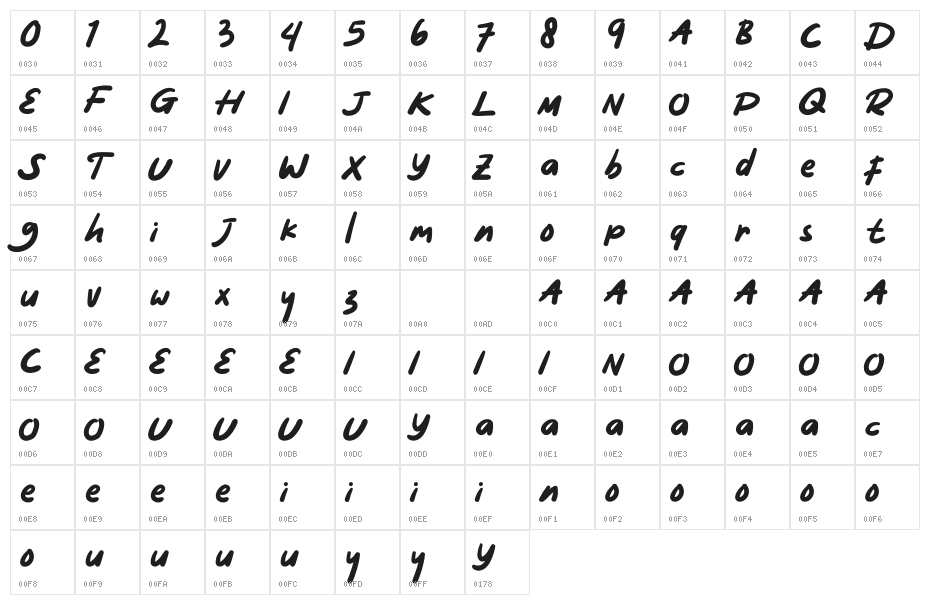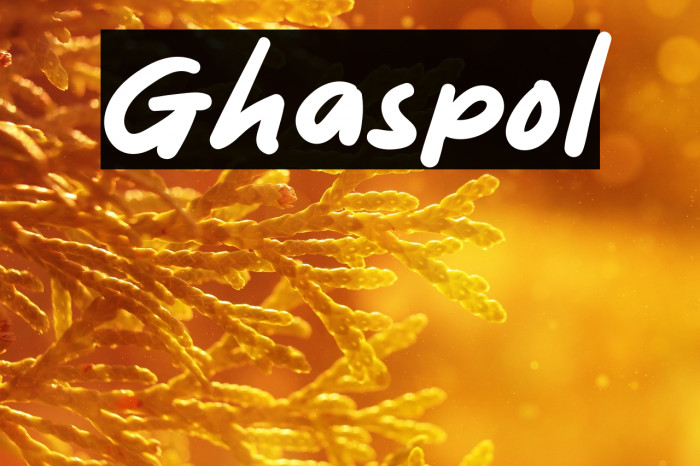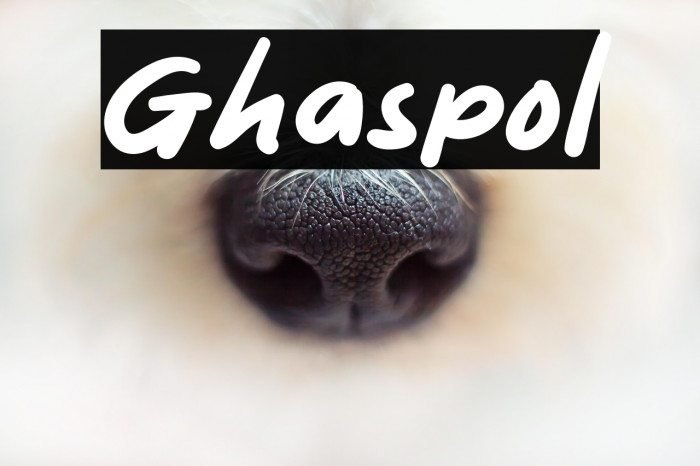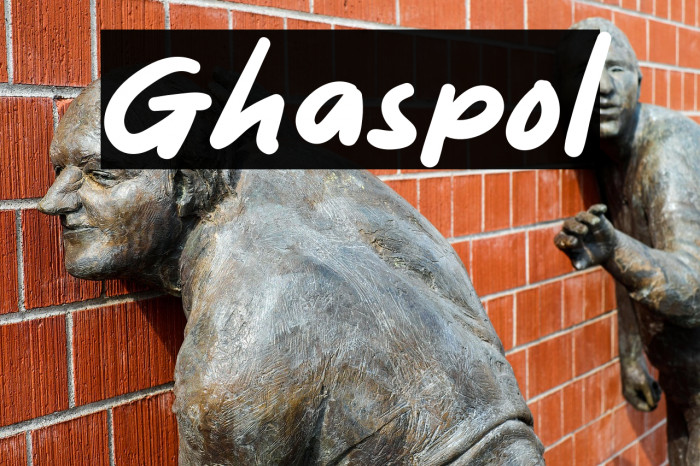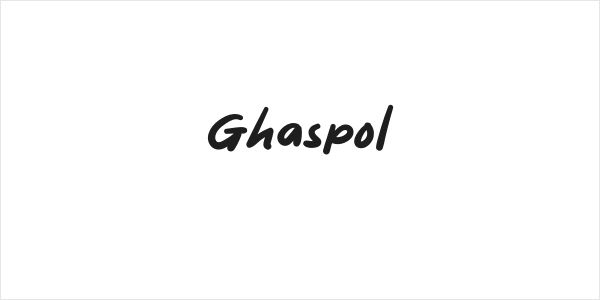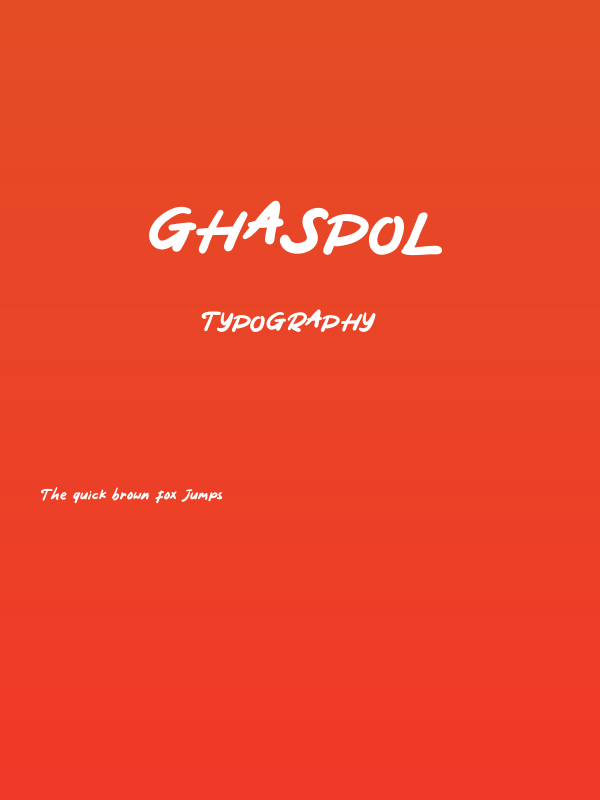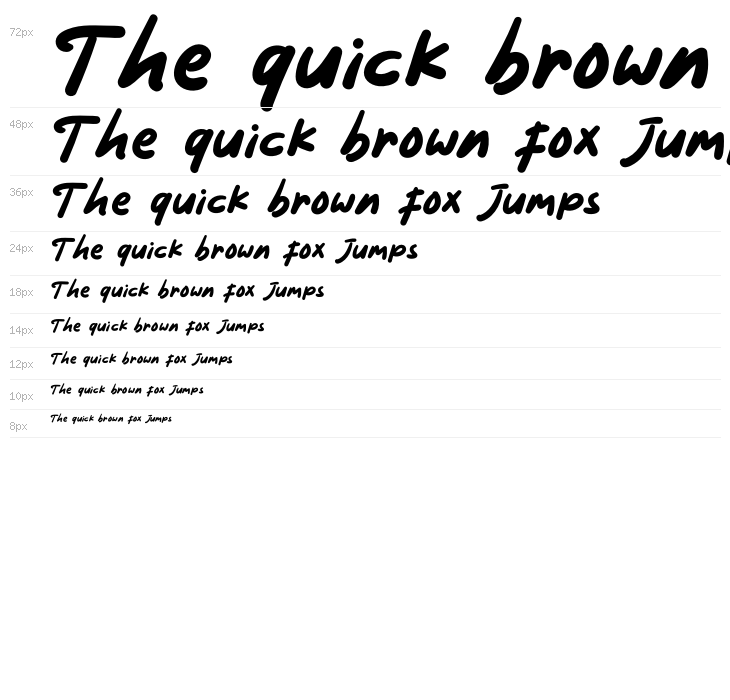
Ghaspol Font
Ghaspol Description
This font features a bold, handwritten style with smooth, flowing curves that give it a casual and friendly appearance. The letters are slightly slanted, adding to the dynamic and informal feel. The uppercase and lowercase characters maintain a consistent style, with rounded edges and a playful touch. The numbers are equally bold and maintain the same handwritten aesthetic, ensuring uniformity across all characters. This font is ideal for projects that require a personal, approachable touch, such as invitations, greeting cards, or branding for creative businesses.
| Overall Style | Casual, Playful |
| Use Case | Headlines, Logos, Invitations |
| Proposed Projects | Ideal for invitations, greeting cards, creative branding, and personal projects. |